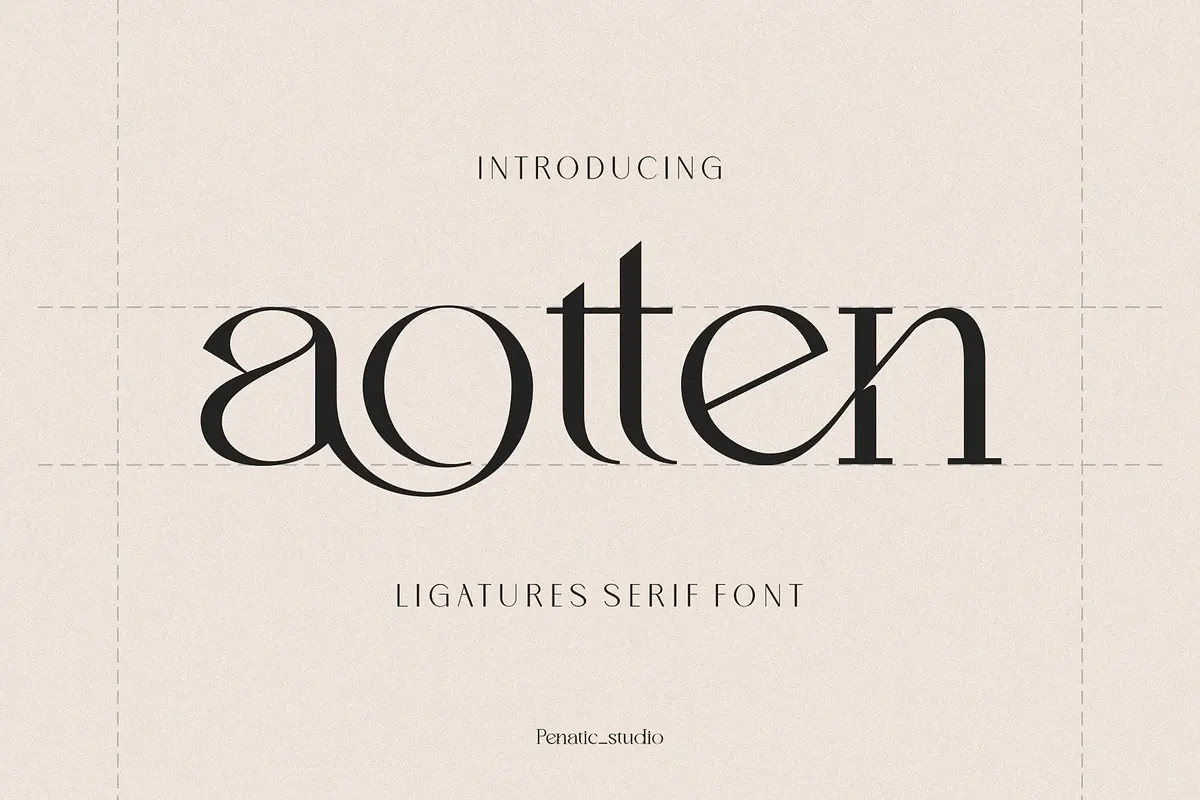
Aotten Font
Introducing Aotten, a modern and elegant serif font designed by Penatic Studio. Aotten features stylish ligatures and a variety of alternates, making it a versatile choice for various design applications.
Features:
Usage Recommendations:
Aotten is ideal for:
Logo design
Print media
Souvenirs and merchandise
Website and social media imagery